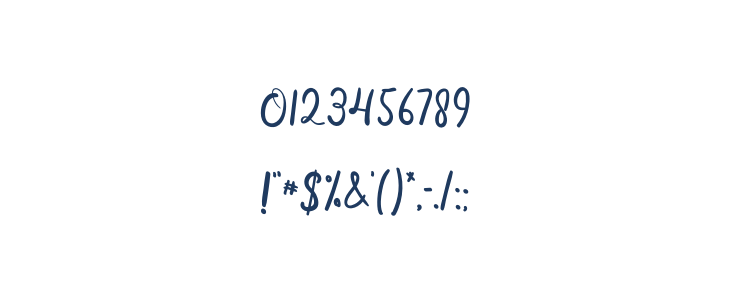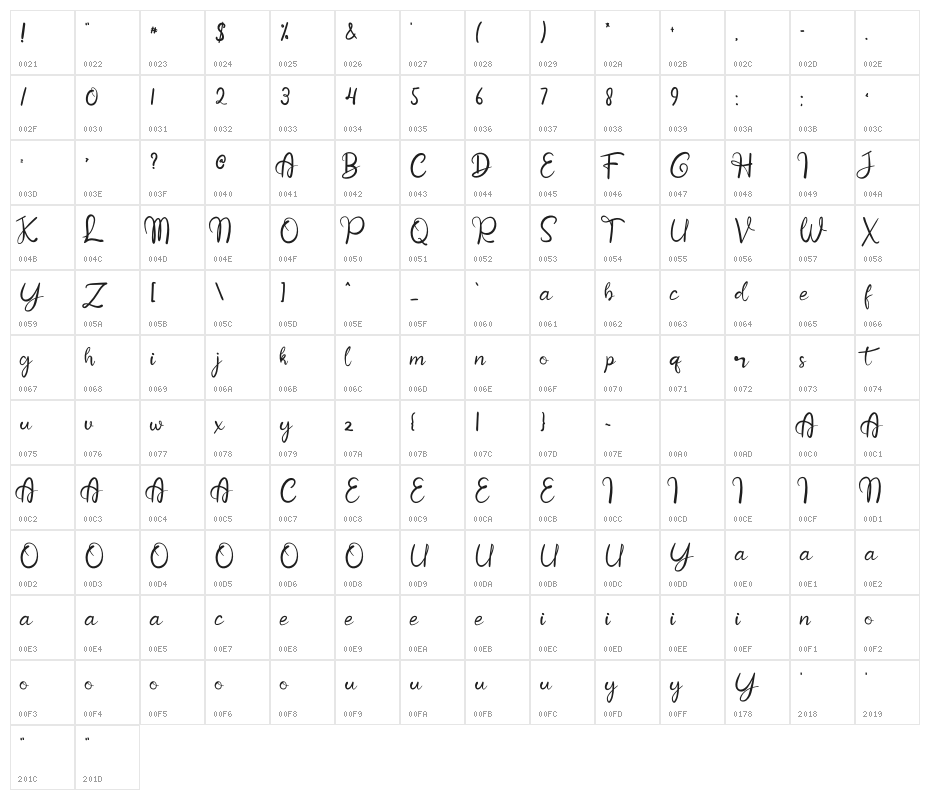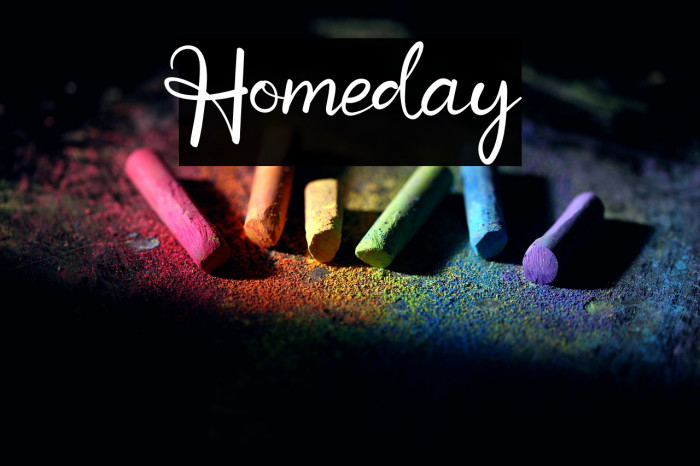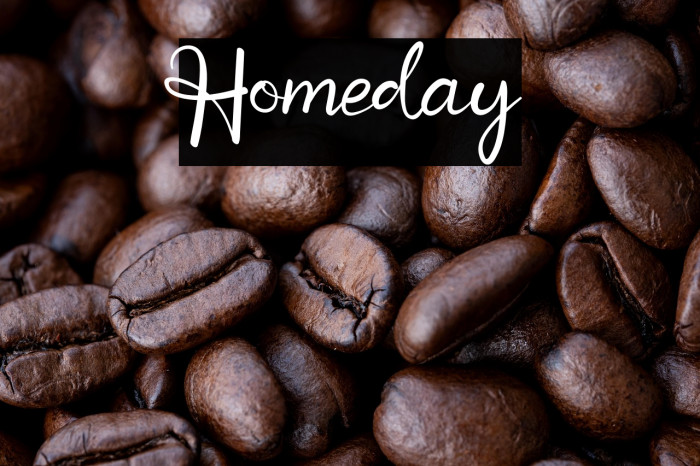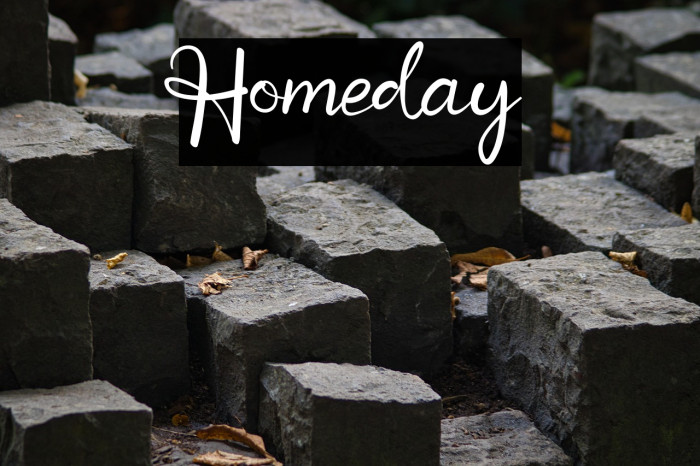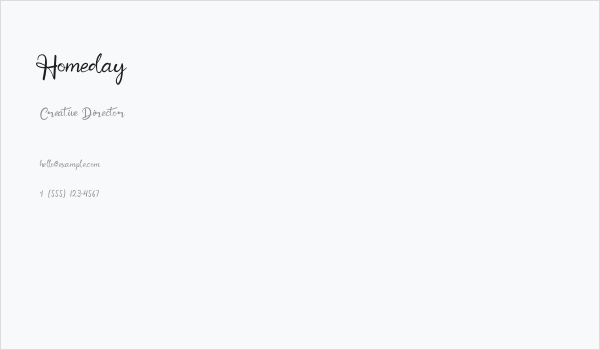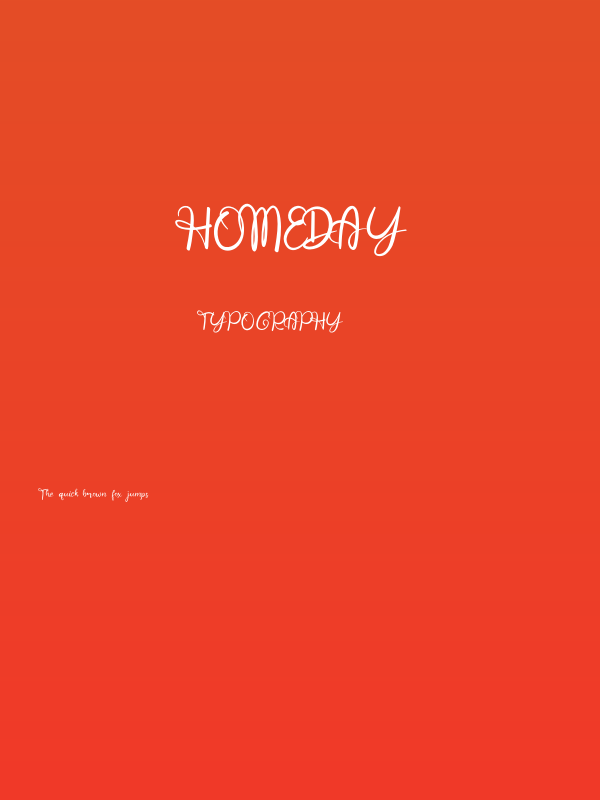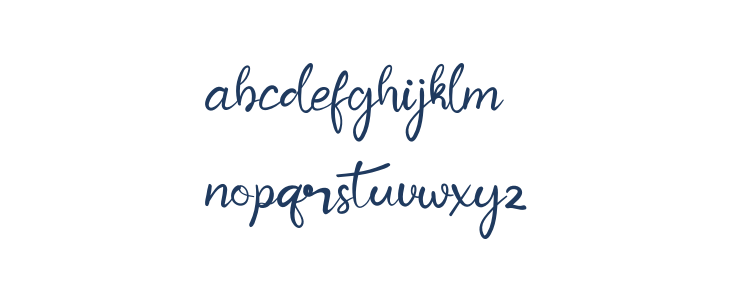
Homeday Font
Homeday Description
This font features a playful and whimsical script style with a handwritten appearance. The letters are characterized by their flowing, cursive forms and varying stroke widths, giving them a dynamic and lively feel. The uppercase letters are bold and prominent, while the lowercase letters maintain a consistent fluidity. Numbers and special characters are designed to match the overall playful aesthetic, making them suitable for creative and informal applications. The font's unique style is ideal for projects that require a personal touch or a sense of fun and creativity.
| Proposed Projects | Ideal for greeting cards, invitations, playful branding, and creative posters. |